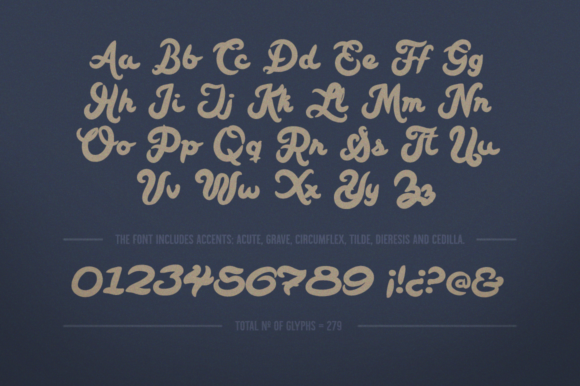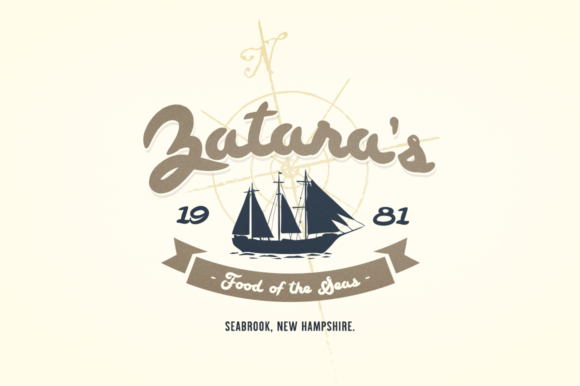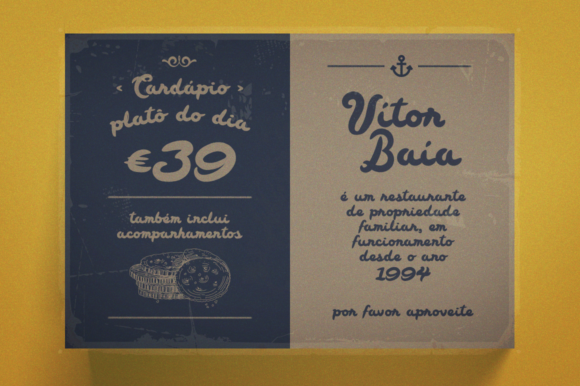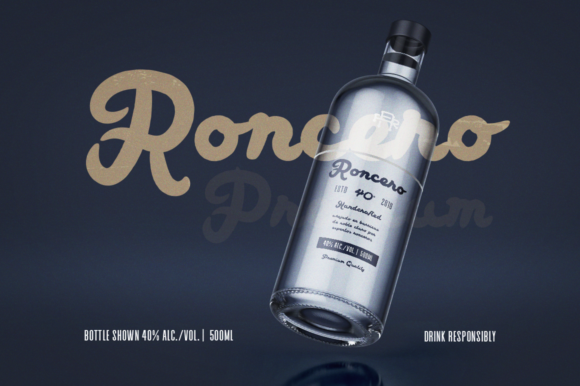
The Charm of Carmela Font
Have you ever stumbled upon an old family photo or a vintage advertisement and felt instantly transported back in time? The way the words seemed to whisper stories of the past, the way the typography seemed to dance with nostalgia – it’s a feeling that’s hard to replicate, but designers are always on the lookout for ways to capture that magic. That’s where Carmela Font comes in.
This script font is a masterclass in delivering a vintage aesthetic with a playful twist. Whether you’re designing a retro-themed website, a vintage-inspired poster, or a classic book cover, Carmela Font is the perfect companion to bring your design to life.
For designers, Carmela Font is a valuable addition to their toolkit, offering a unique blend of nostalgia and whimsy that’s sure to captivate audiences and leave a lasting impression.
Carmela Font Review
I’ve had the chance to work with Carmela Font, and I must say it’s a decent choice for body text. Here are some things that work well:
- ✨ The font is highly legible, making it perfect for lengthy articles and documents.
- ✨ Carmela Font comes in a variety of weights, giving you flexibility in terms of styling your content.
- ✨ It’s a relatively lightweight font, which is great for web applications where page load times are crucial.
However, I do have some concerns:
- ⚠️ Carmela Font may not be the best choice for headlines or titles, as it can look a bit generic and unremarkable.
- ⚠️ The font doesn’t have a strong unique identity, which might make it harder to stand out in a crowded design landscape.
Overall, I’d say Carmela Font is a solid, middle-of-the-road choice for body text. It’s not going to wow anyone, but it gets the job done. If you’re looking for something a bit more unique, you might want to consider other options. But for general body text, Carmela Font is a safe bet.
Tips for Getting the Most Out of Carmela Font
Use Carmela Font for titles, headings, and emphasis.
Pair Carmela Font with other elegant fonts for a sophisticated look.
Carmela Font is perfect for:
Food and beverage branding.
Home decor and furniture design.